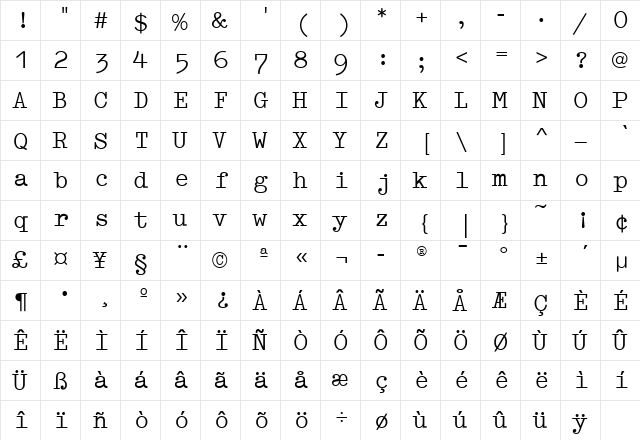
TechnoScriptEF Regular Font Preview
TechnoScriptEF Regular
TechnoScriptEF Regular Font Details
| Foundry | Elsner+Flake |
Design Context for TechnoScriptEF Typeface
TechnoScriptEF channels digital-age aesthetics through its sharp, structured letterforms — ideal for brands that want to signal innovation.
Pro Tip: Try TechnoScriptEF with generous letter-spacing in UI labels and navigation — the geometric forms benefit from room to breathe.